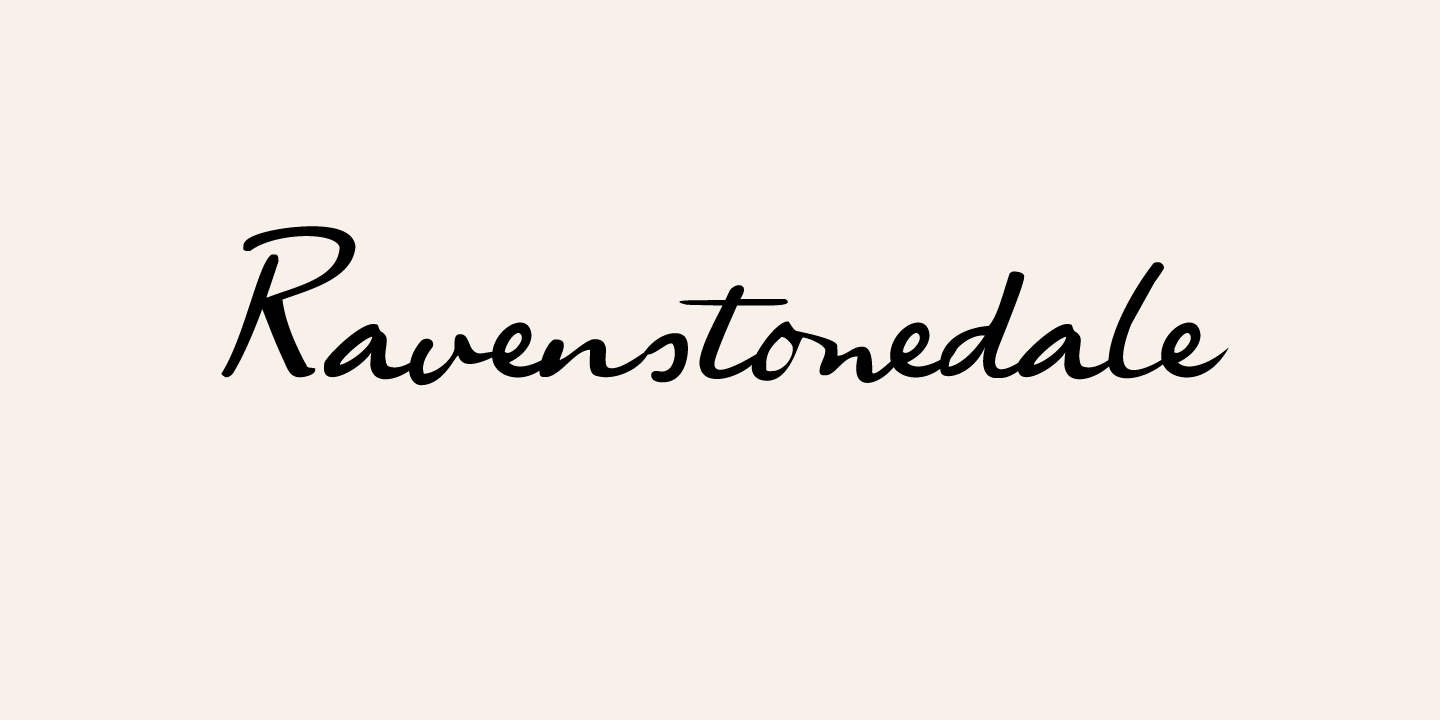
About Ravenstonedale
Ravenstonedale is a village in Cumbria, England. There\’s not much to see in this quaint village, but the landscape surrounding it is beautiful. This font was sort of based on a number of handwritten letters by English author D.H. Lawrence. It is not…